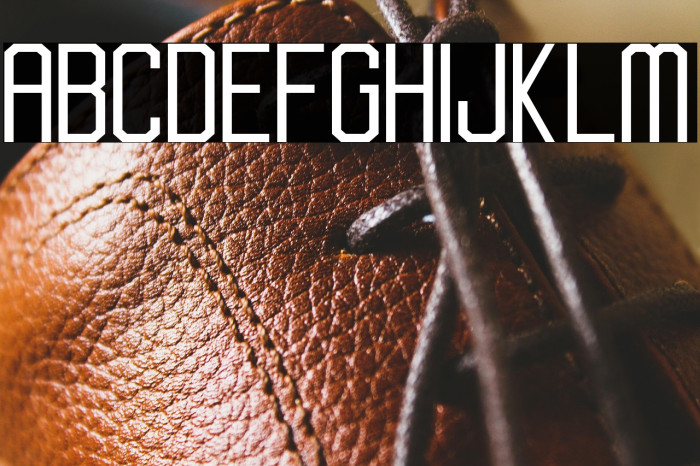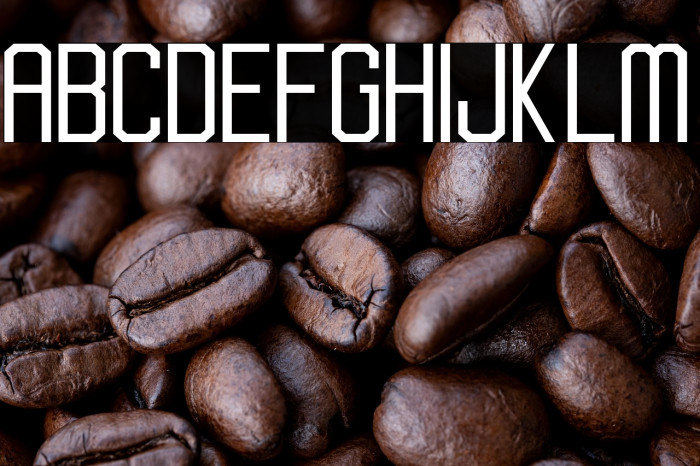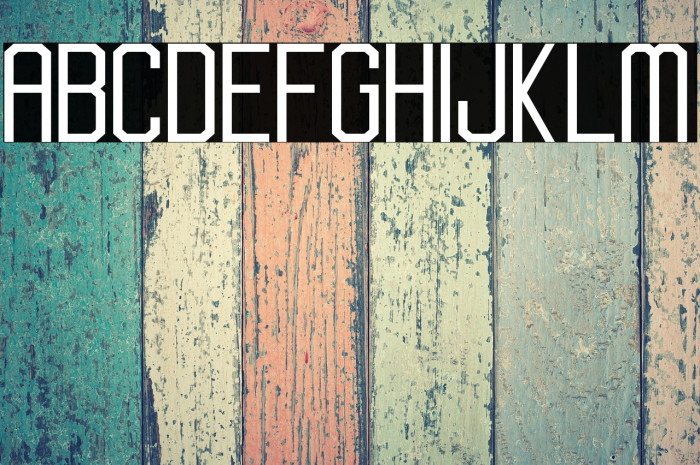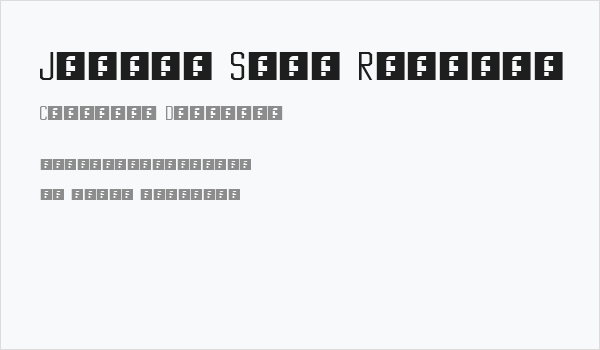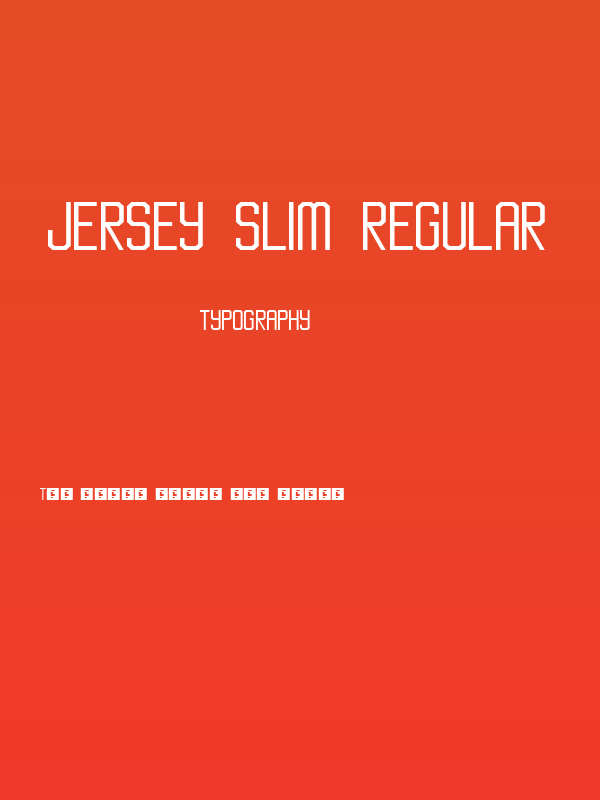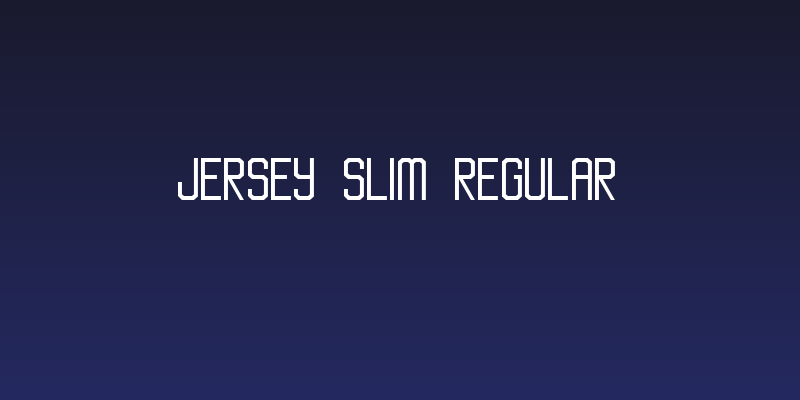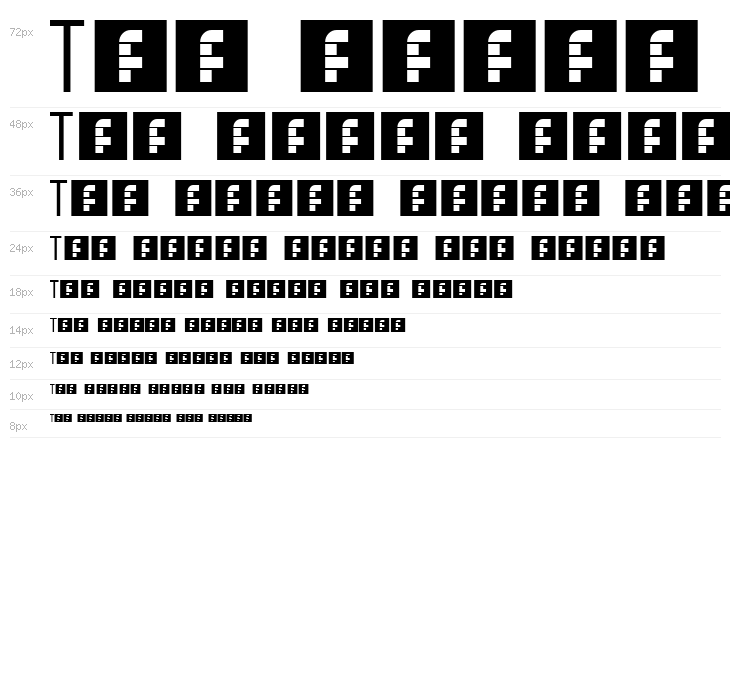
Jersey Slim Regular Font
Jersey Slim Regular Description
This font features a geometric and modern design with a distinctively slim and elongated appearance. The characters are constructed with straight lines and sharp angles, giving it a sleek and contemporary look. The uniform stroke width across all characters contributes to a clean and minimalist aesthetic. The uppercase letters are particularly tall and narrow, emphasizing verticality, while the lowercase letters maintain a consistent style. The overall design is highly legible, making it suitable for various applications where clarity is essential.
| Proposed Projects | Ideal for sports jerseys, modern branding, digital interfaces, and signage where a sleek and contemporary look is desired. |